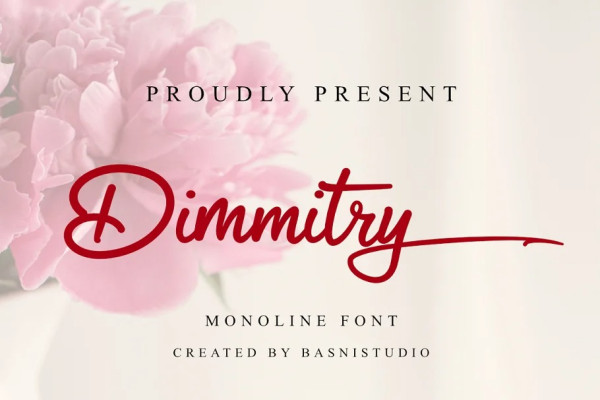
Dimmitry Font
Dimmitry Font, Monoline font, It looks Clean & Modern, made with details and precision, perfect for branding, websites, design invitation, and editorial designs. Includes all upper and lower case letters, multilingual support, punctuation, binding and initial and final swash. everything can be easily accessed using software that supports OpenType.